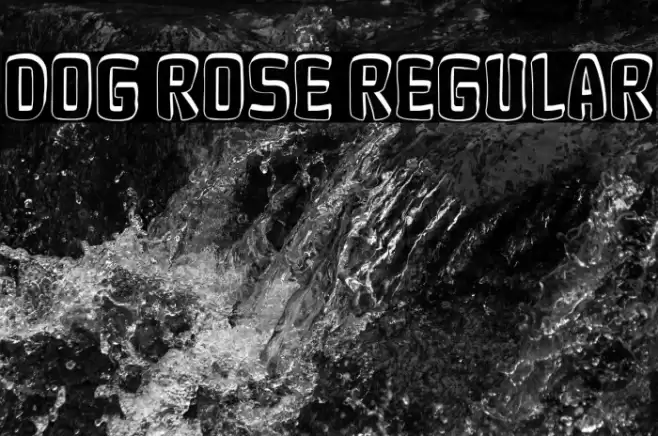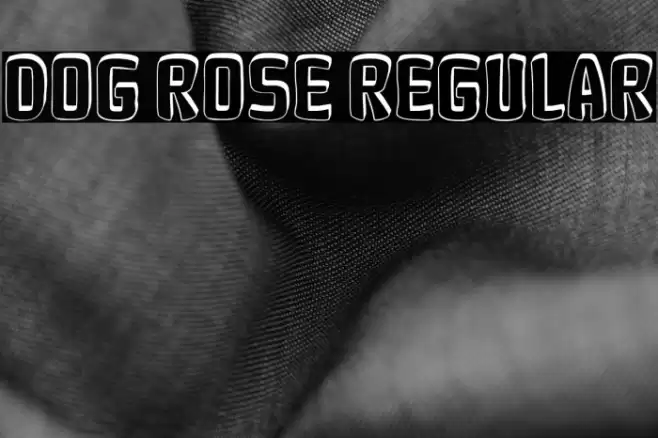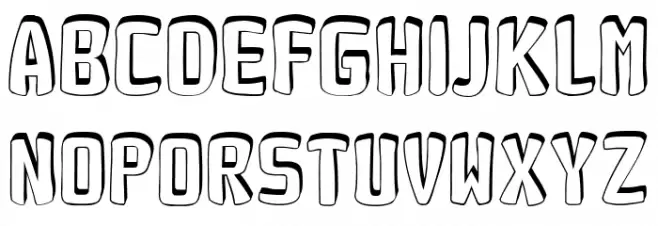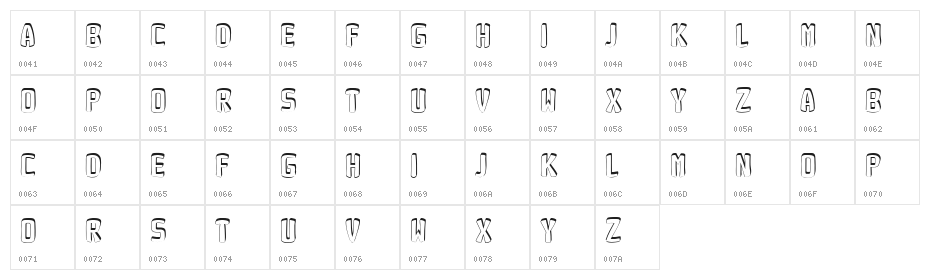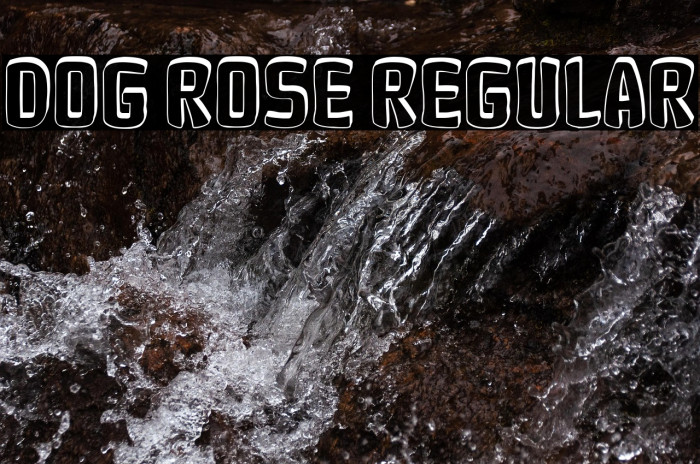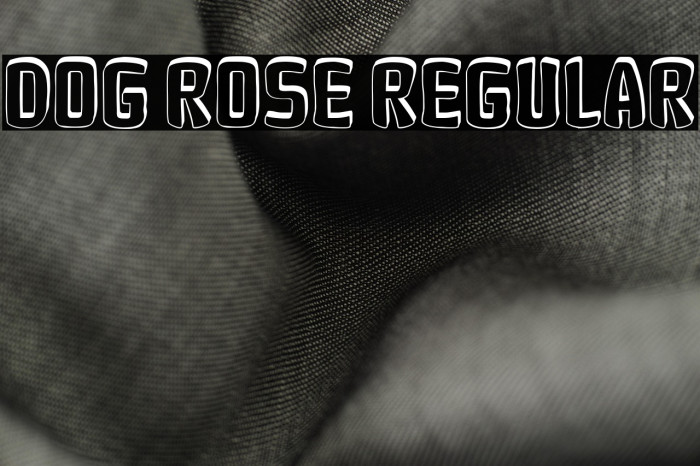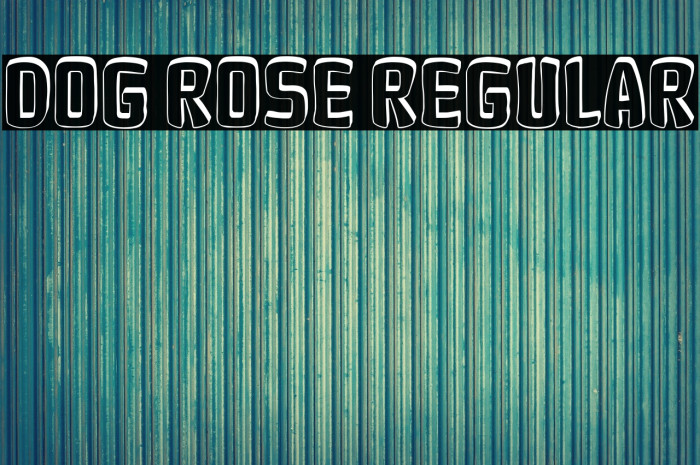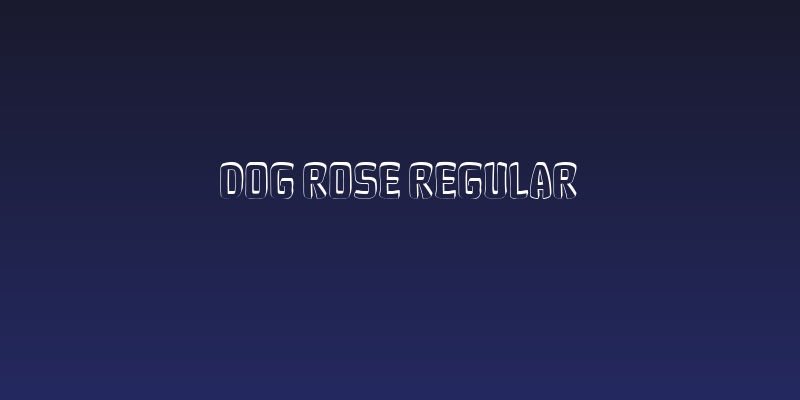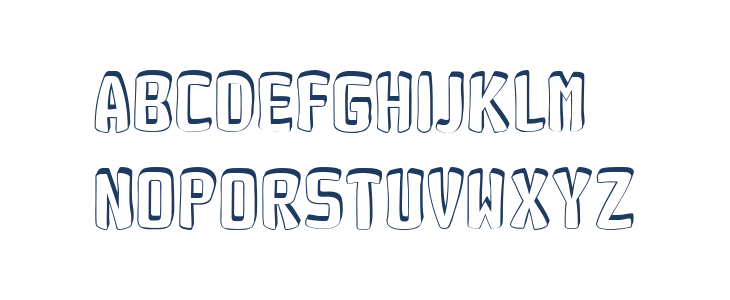
Dog Rose Regular Font
Dog Rose Regular Description
This font features a playful and bold design with a hand-drawn aesthetic. The characters are outlined, giving them a unique, hollow appearance that adds depth and dimension. The strokes are consistent in width, contributing to a uniform look across all letters. The uppercase letters are prominent and eye-catching, making them ideal for attention-grabbing headlines or titles. The font's whimsical style is reminiscent of comic or cartoon lettering, which adds a fun and informal touch to any design. Its distinctiveness makes it suitable for creative projects that require a lively and engaging typeface.
A playful, outlined font with a hand-drawn, comic-like style from Regular fonts.
- Proposed Projects: Ideal for children's book covers, comic strips, playful branding, and creative posters.
- Overall Style: Playful, Comic